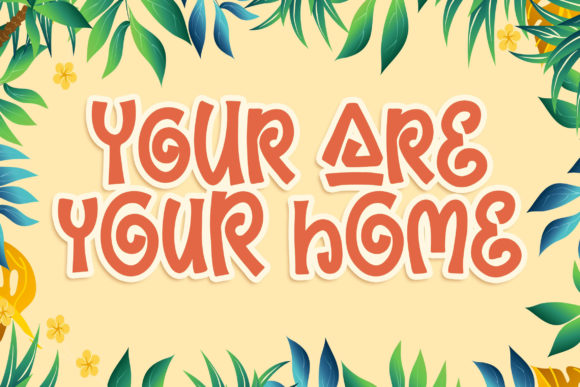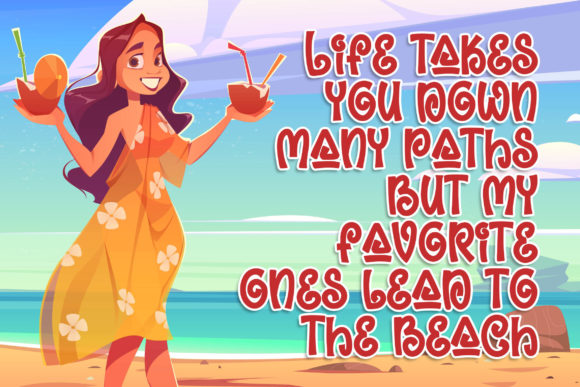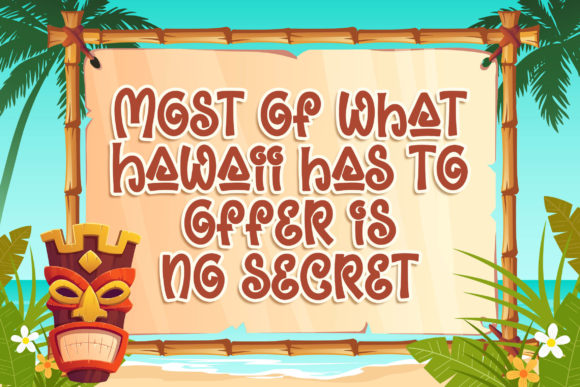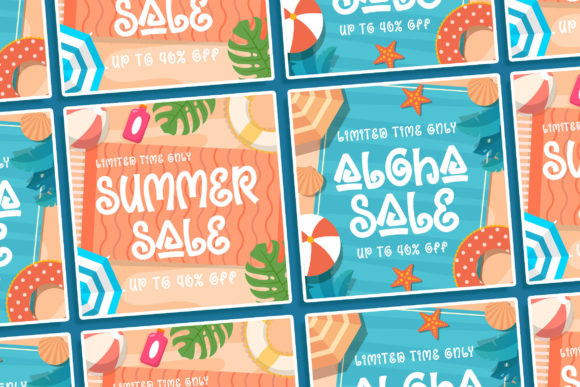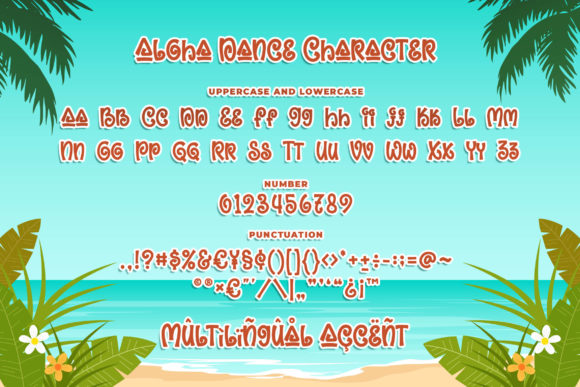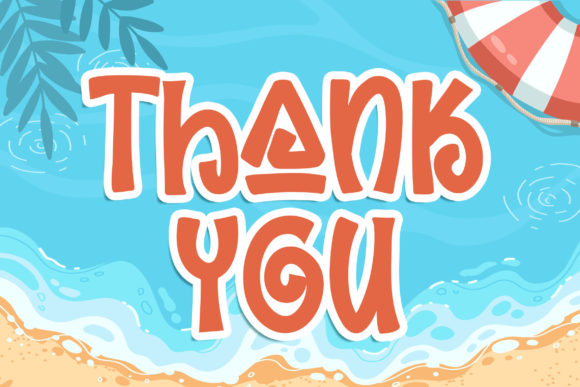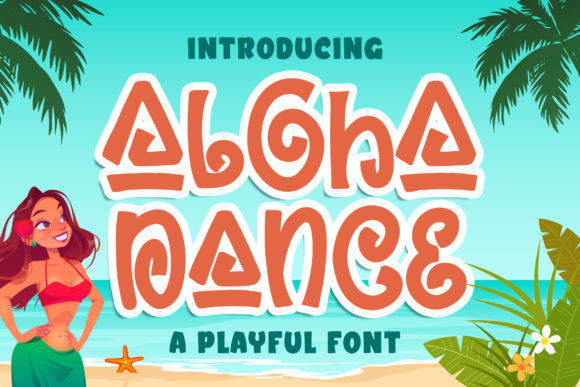
Aloha Dance Font: Add a Touch of Whimsy to Your Designs
Are you tired of using the same old fonts in your designs? Do you want to add a touch of playfulness and whimsy to your creations? Look no further than the Aloha Dance font! This cool and playful display font is perfect for designers and crafters who want to elevate their work and make it stand out.
What is Aloha Dance Font?
Aloha Dance is a modern, sans-serif display font that is designed to bring a sense of fun and playfulness to your designs. With its unique and quirky letterforms, this font is sure to capture the attention of your audience and leave a lasting impression. Whether you’re working on a branding project, a marketing campaign, or a personal craft, Aloha Dance is the perfect choice.
Key Features of Aloha Dance Font
- Playful and Whimsical: Aloha Dance is a font that is designed to bring a sense of fun and playfulness to your designs. Its unique letterforms and quirky style make it perfect for projects that require a touch of whimsy.
- Cool and Modern: This font is perfect for designers who want to create modern and trendy designs. Its clean lines and sans-serif style make it a great choice for projects that require a contemporary look.
- Display Font: Aloha Dance is a display font, which means it’s perfect for headlines, titles, and other large text elements. It’s designed to make a statement and grab attention.
- Versatile: This font is versatile and can be used for a wide range of projects, from branding and marketing to crafting and DIY projects.
Why Use Aloha Dance Font?
So, why should you use Aloha Dance font in your designs? Here are just a few reasons:
- Adds a Touch of Personality: Aloha Dance font adds a touch of personality to your designs, making them more engaging and memorable.
- Perfect for Creative Projects: This font is perfect for creative projects, such as crafting, DIY projects, and artistic endeavors.
- Great for Branding and Marketing: Aloha Dance font is also great for branding and marketing projects, as it’s designed to grab attention and make a statement.
- Easy to Read: Despite its playful style, Aloha Dance font is easy to read, making it perfect for large text elements.
How to Use Aloha Dance Font
Using Aloha Dance font is easy! Here are a few tips:
- Pair it with Other Fonts: Pair Aloha Dance font with other fonts to create a unique and interesting contrast.
- Use it for Headlines: Use Aloha Dance font for headlines and titles to grab attention and make a statement.
- Have Fun: Most importantly, have fun with Aloha Dance font! Its playful style is designed to bring a sense of joy and creativity to your designs.
In conclusion, Aloha Dance font is a cool, playful, and whimsical display font that is perfect for designers and crafters who want to add a touch of fun and personality to their designs. With its unique letterforms, quirky style, and versatile nature, this font is sure to elevate any creation and make it stand out. So why not give Aloha Dance font a try and see the difference it can make in your designs?